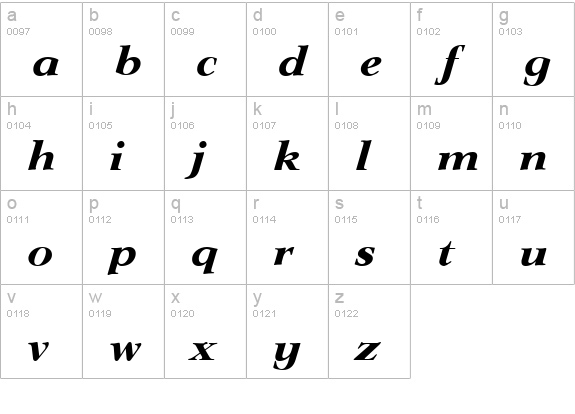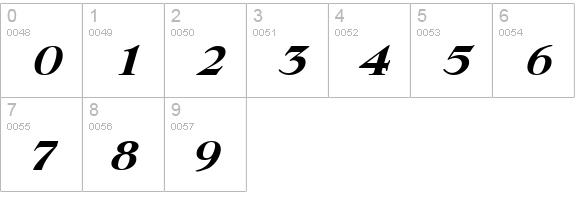
LingwoodSerial-Xbold-Italic is a distinctive, italic variant in the LingwoodSerial typeface family \xE2\x80\x94 well suited to design and typography projects.
Introducing LingwoodSerial-Xbold-Italic font, a striking and elegant typeface that exudes sophistication and modernity. With its bold and italicized design, this font is perfect for making a strong statement in your designs. The sleek lines and unique curves of LingwoodSerial-Xbold-Italic add a touch of luxury and class to any project. What's even better is that LingwoodSerial-Xbold-Italic is available for free download at FontsMarket.com. Whether you are working on branding, editorial design, or any other creative project, this font will elevate your work to the next level. Don't miss out on the opportunity to enhance your designs with the timeless elegance of LingwoodSerial-Xbold-Italic. Download it today and let your creativity shine!